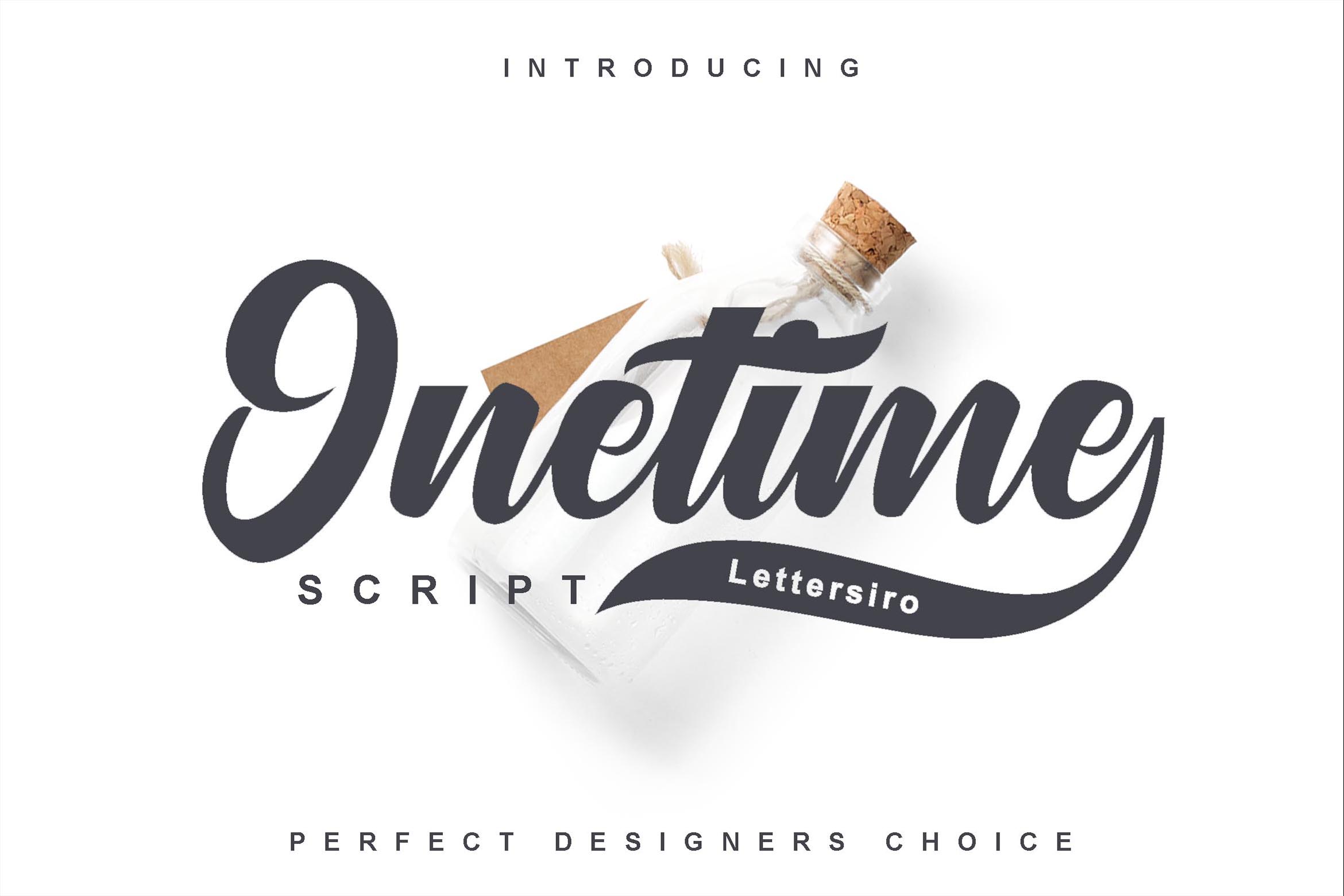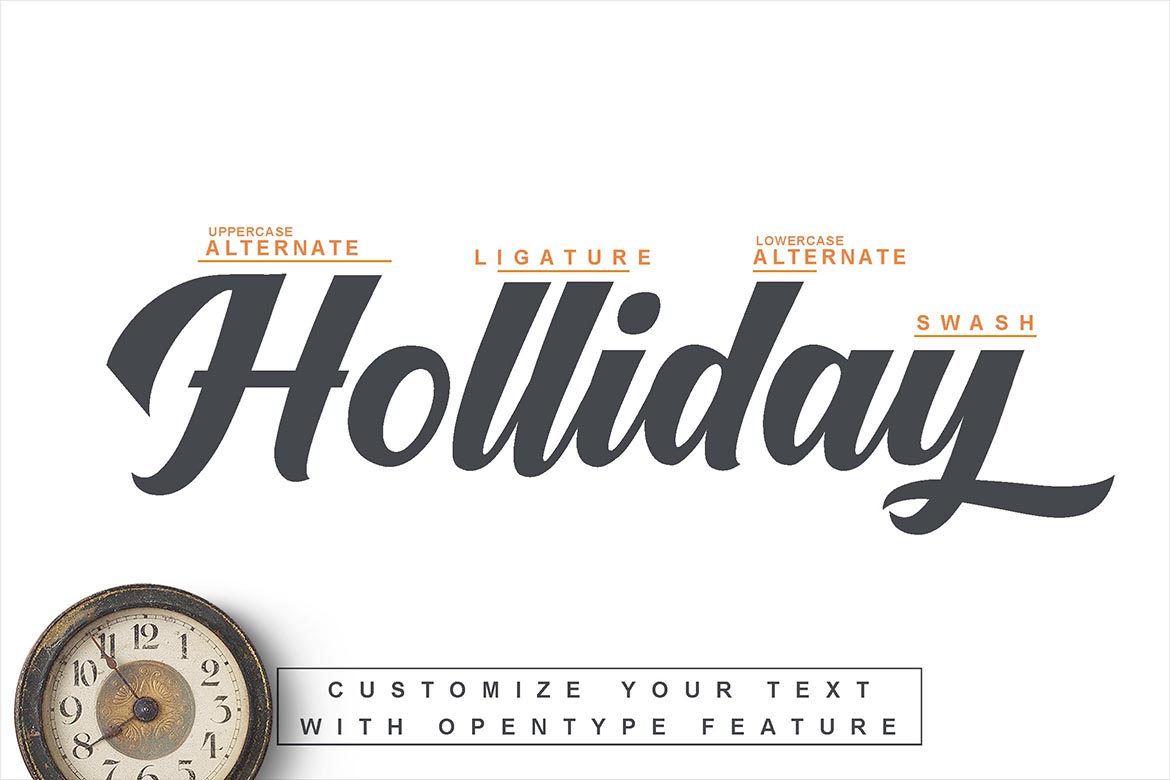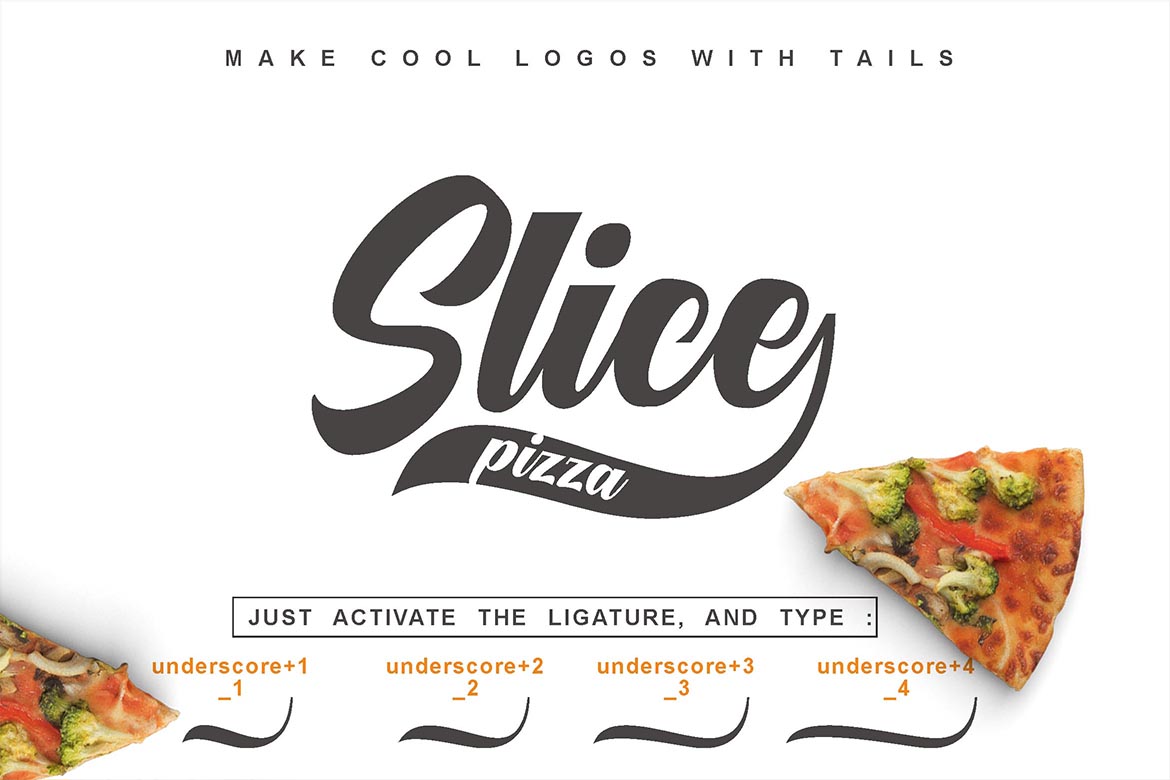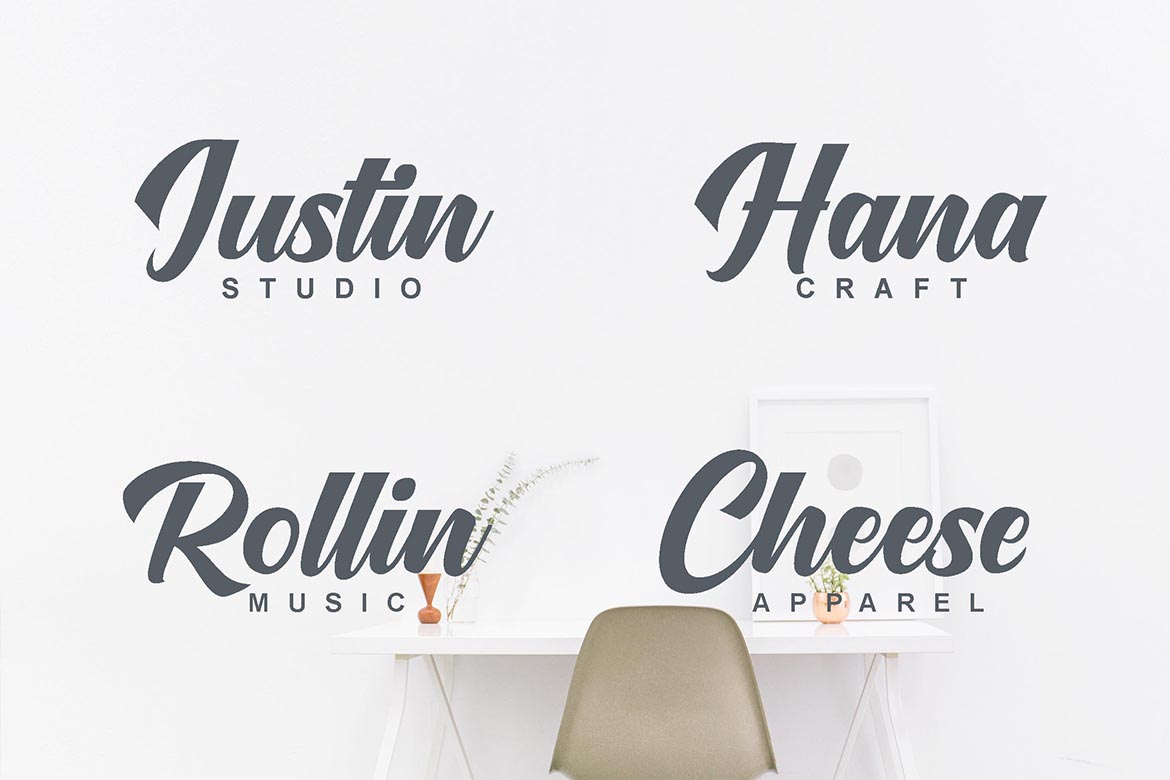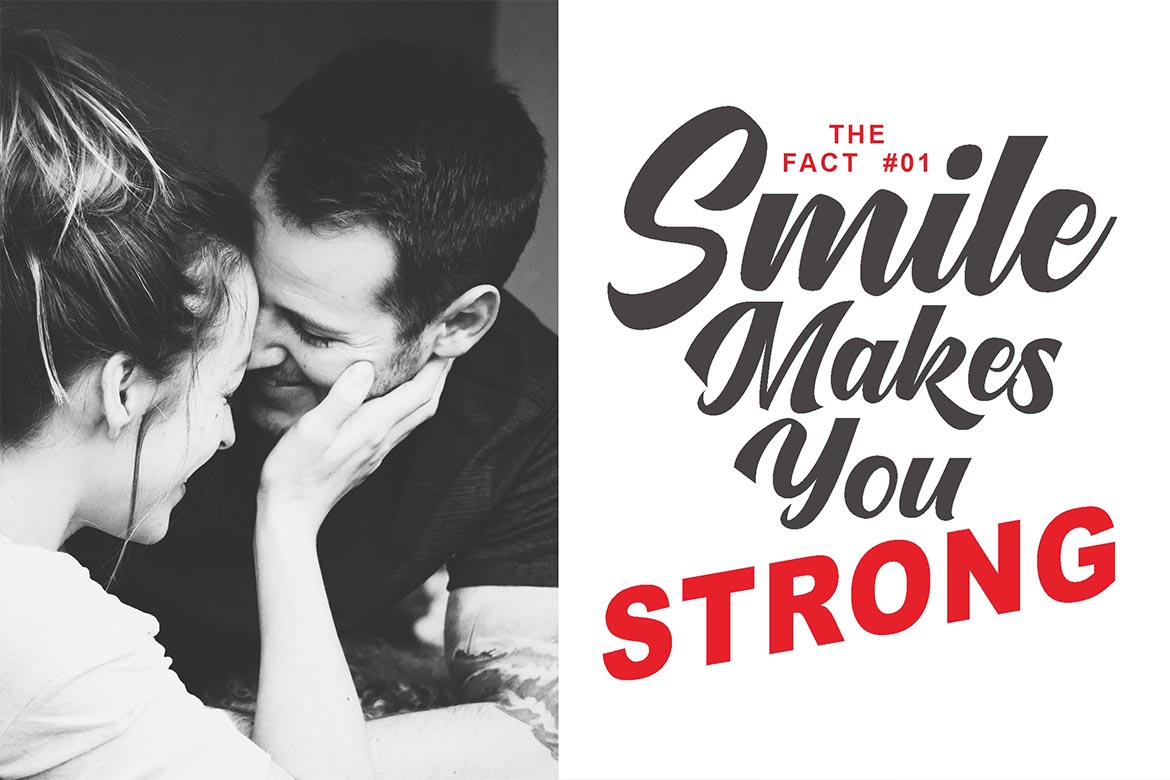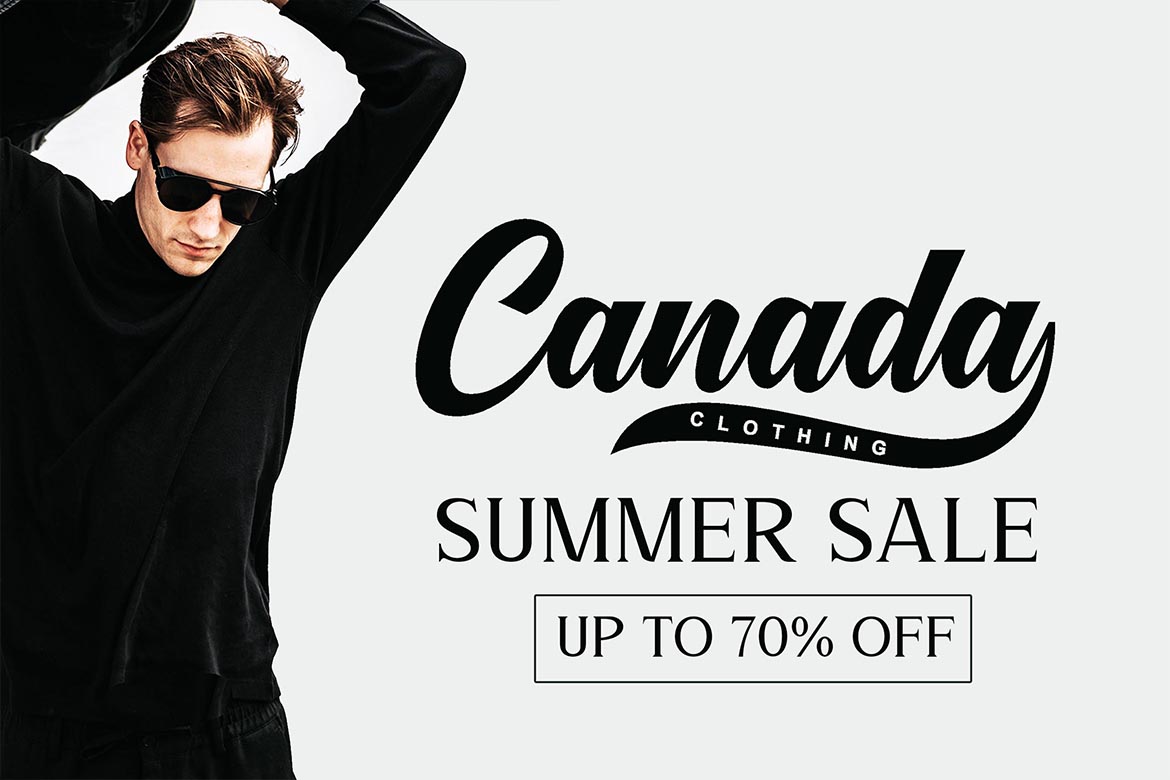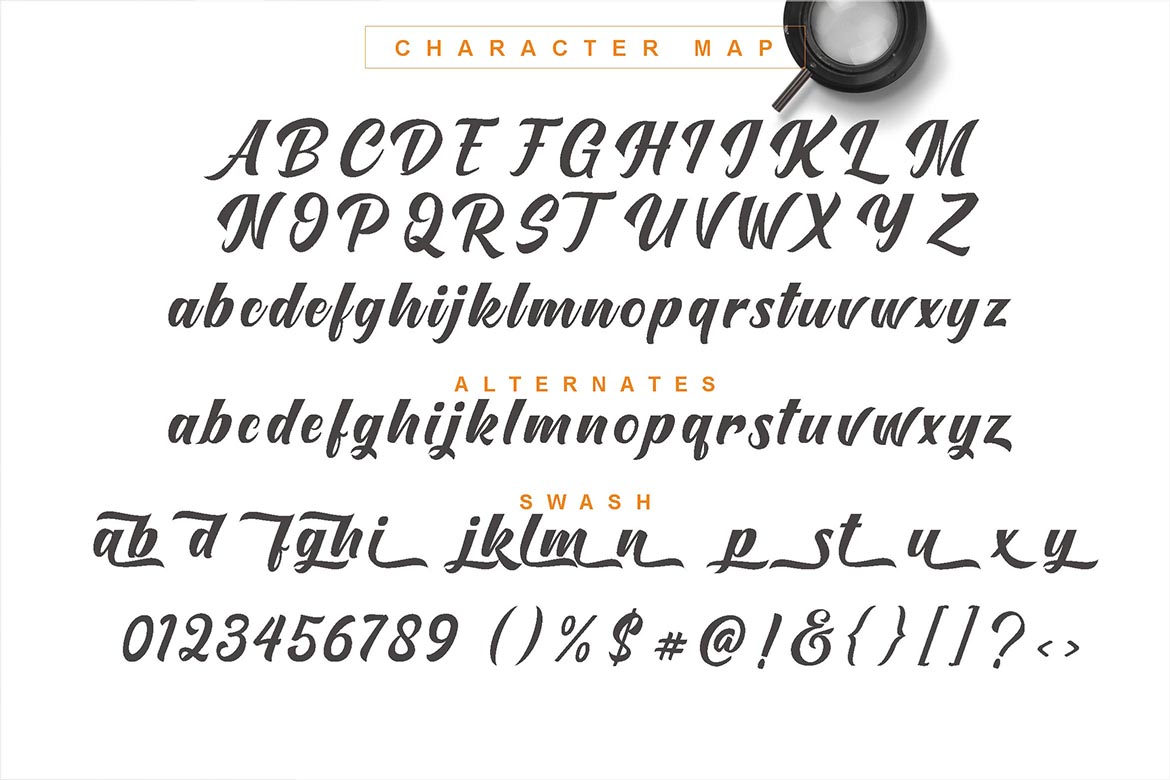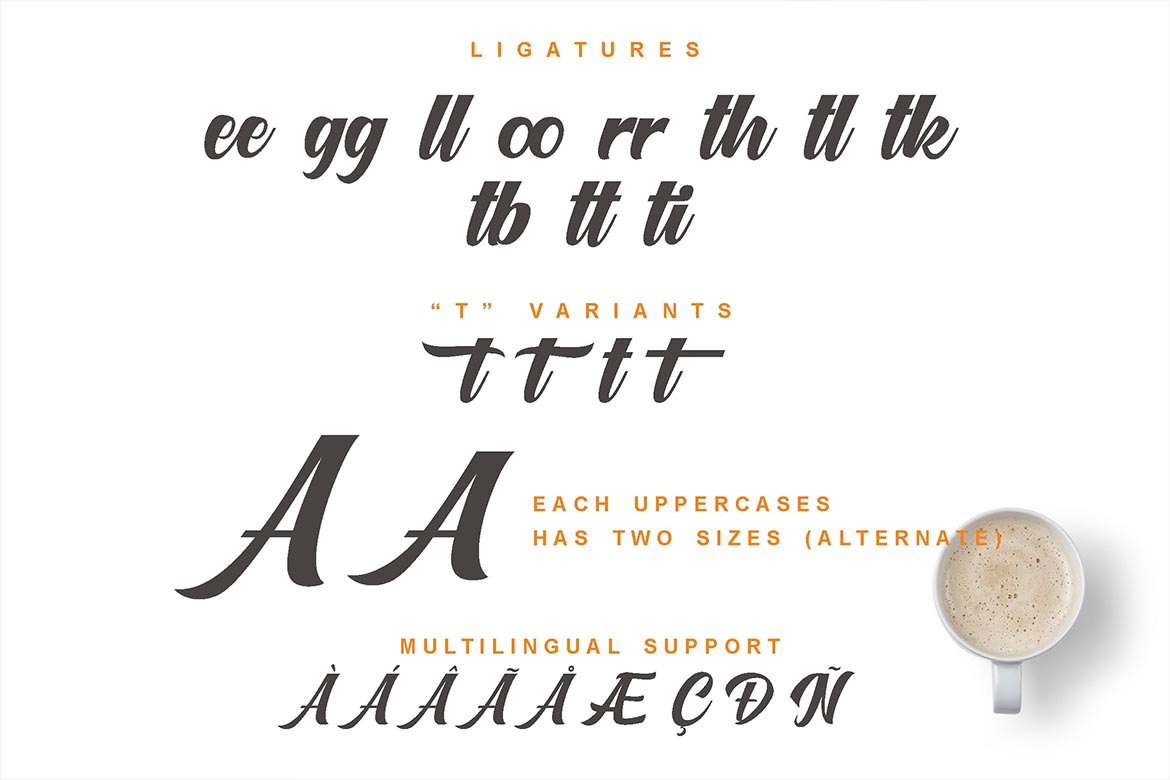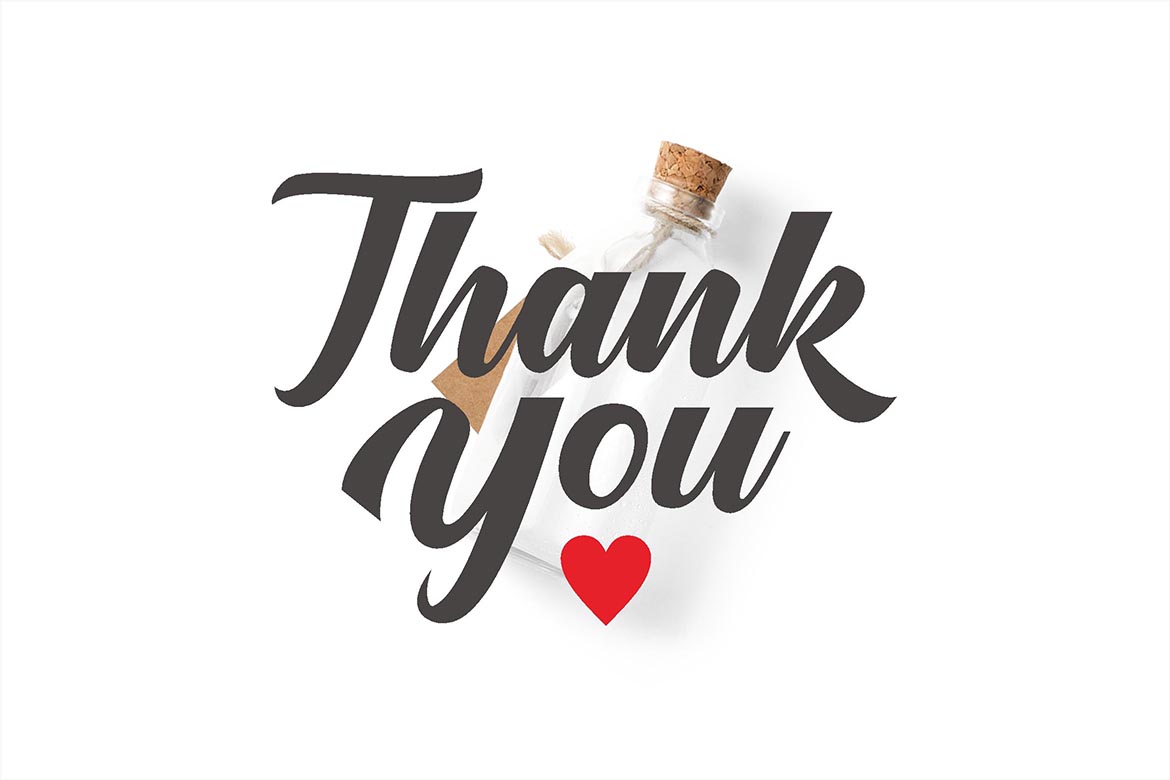
Onetime Font
About Onetime Font
Onetime is a beautiful handwritten script font, suitable for highly fashionable yet retro designs. This painterly – yet clean – brushstroke font is a great way to anchor your designs without skimping on style or elegance.